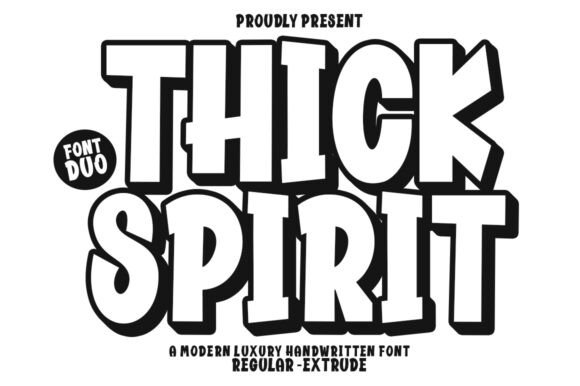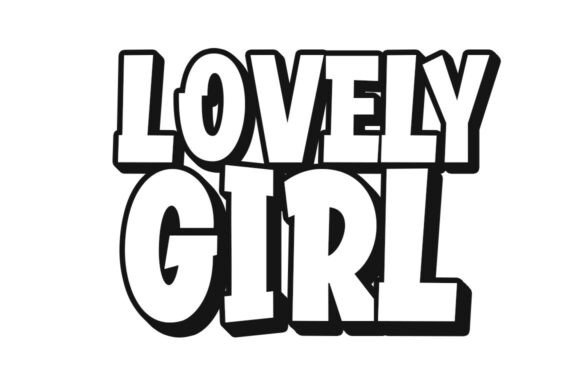
Thick Spirit Font
Experience the delightful charm of Thick Spirit, a captivating display font. With its whimsical, slightly quirky character, it’s assured to infuse a burst of bright joy into all your design work. Thick Spirit brings a fresh vibrancy to any project, destined to delight your visual taste buds. Notably, it comes PUA coded. This means you’ll have effortless access to an incredible array of glyphs and ligatures, adding a new level of depth and dimension to its functionality. Thick Spirit is not just a font, it’s a creative journey that offers exciting, unparalleled design possibilities.